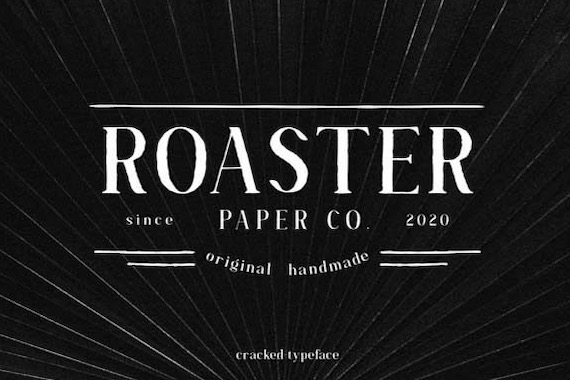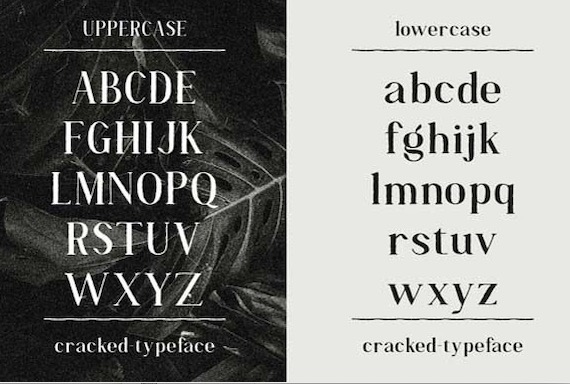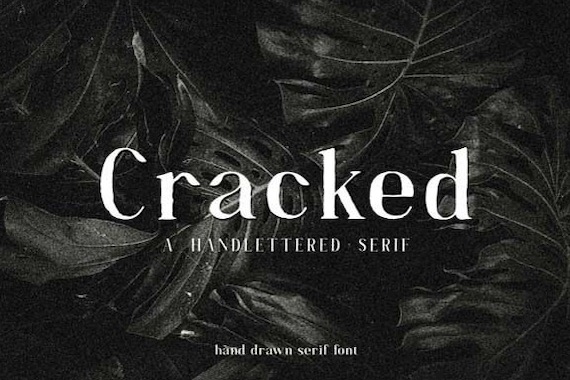
Provide to you a new Serif typeface that can be a great design tool, Cracked Font. This Serif font was created and shared by Hanzel Studio along with authenticity, quirkiness, and cheerful look.
Cracked Serif Font
Designer Name: Hanzel Studio